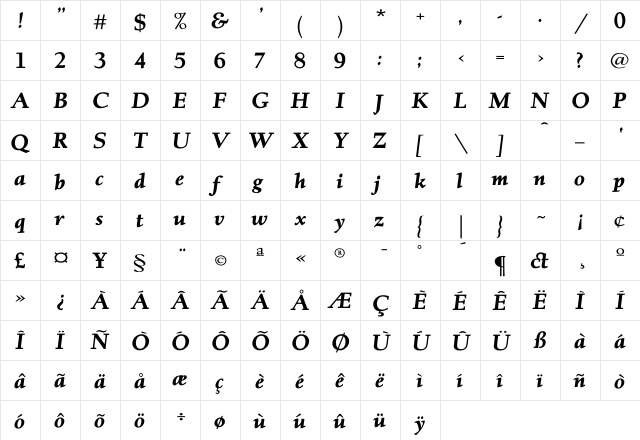
AlbertanBoldLZ Itali Font Preview
AlbertanBoldLZ Itali
AlbertanBoldLZ Itali Font Details
| Style | Itali |
Design Context for AlbertanBoldLZ Typeface
AlbertanBoldLZ takes a measured approach to typography — its balanced proportions and neutral character make it a reliable workhorse for both digital and print work. The heavy weight commands attention and anchors typographic hierarchies.